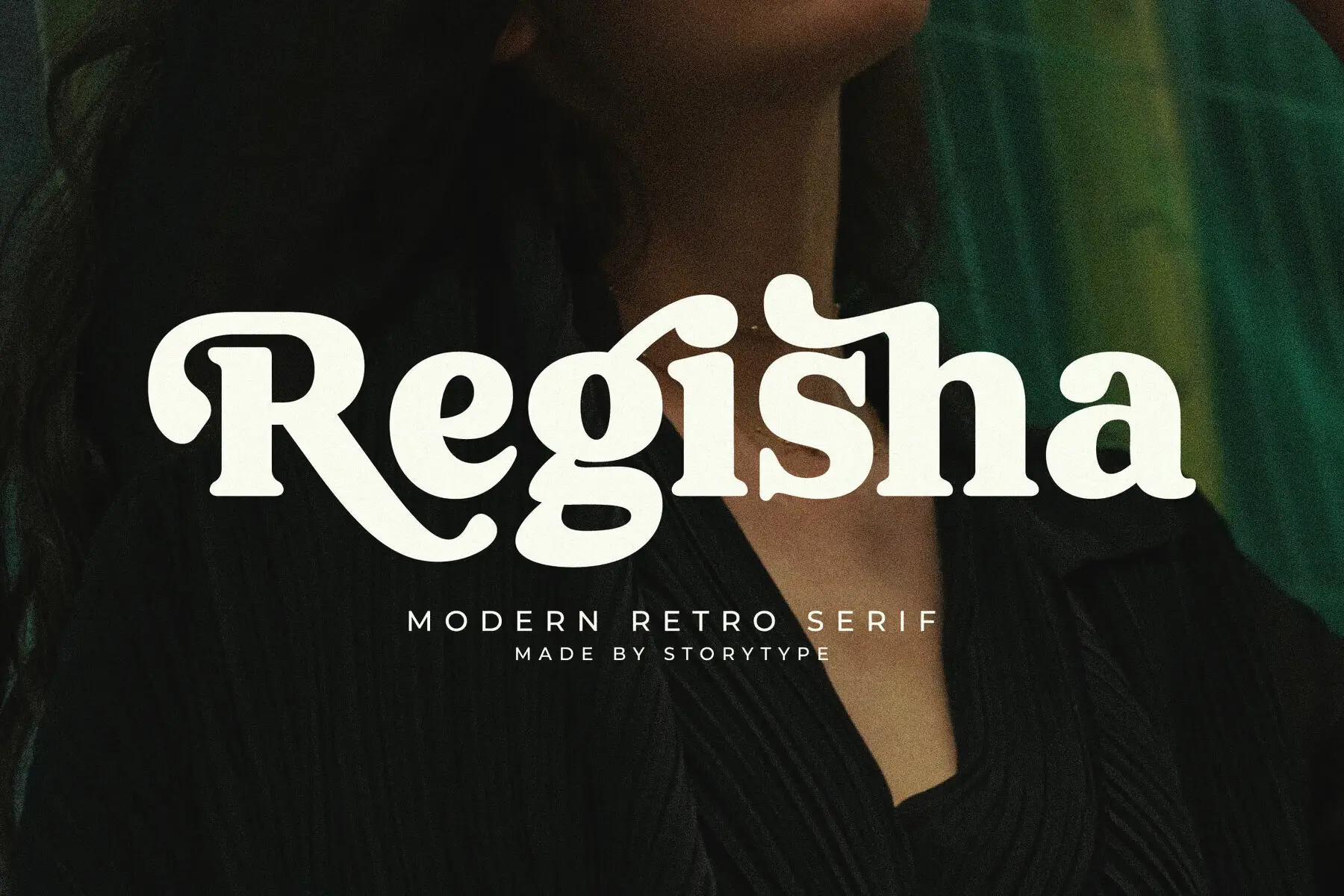
Regisha Font
Meet Regisha, a sophisticated serif typeface developed by Storytype Studio. This font beautifully blends modern aesthetics with classic influences, creating a style that stands out for its uniqueness and refined appearance. Ideal for a broad range of design projects, Regisha is perfect for luxury logos, book or movie titles, as well as fashion brands, magazines, and beyond. Regisha enhances every project with its elegance, making it an indispensable choice for design professionals.Regisha Typeface: A Classic Touch Meets Modern Elegance